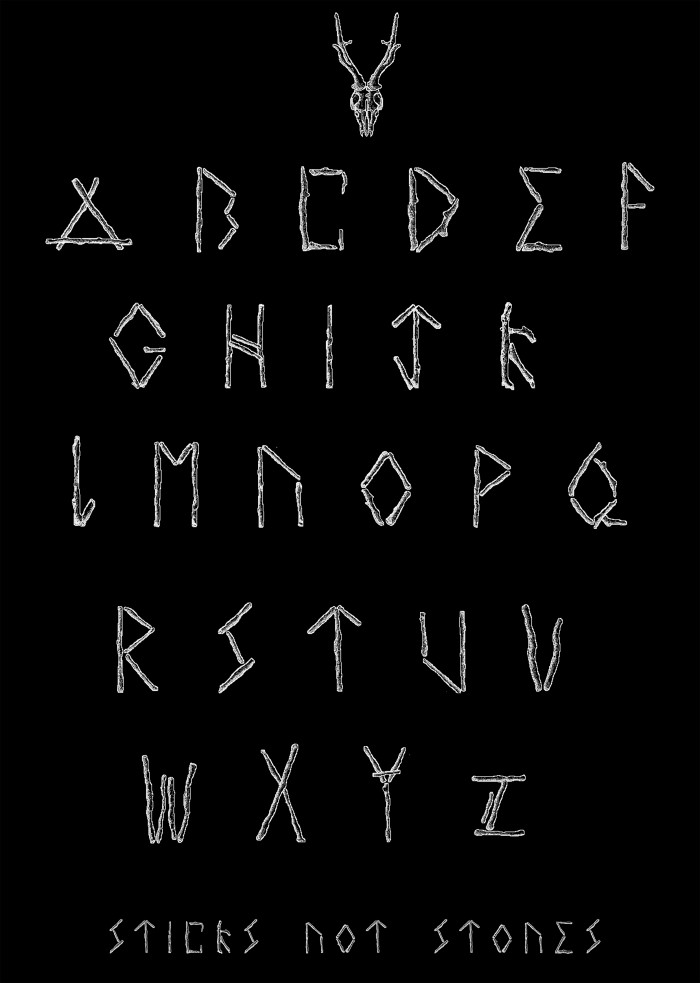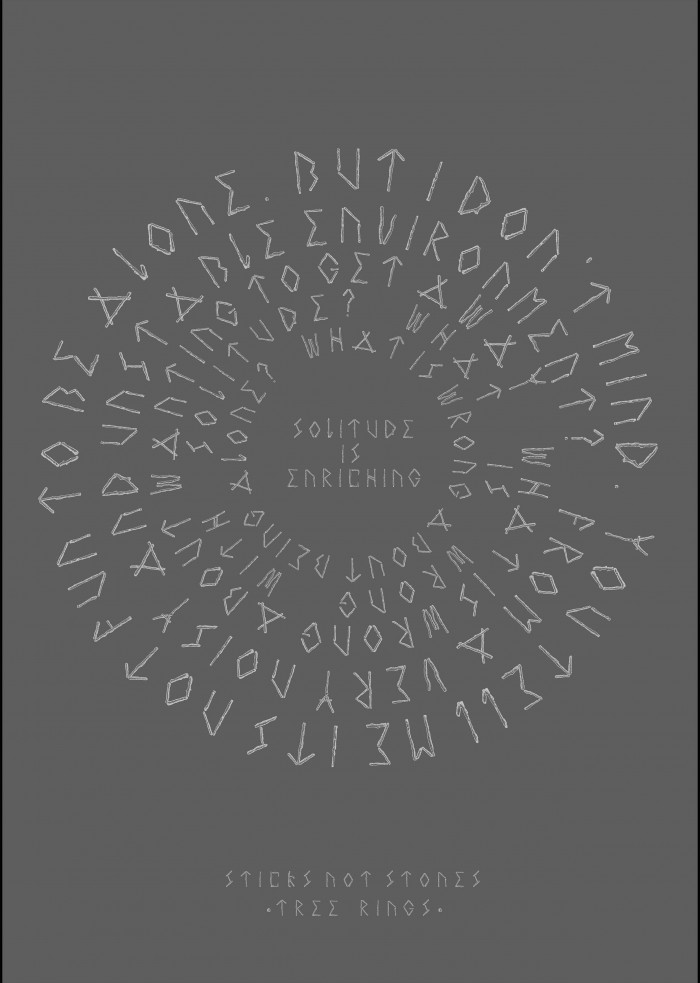
• The font was inspired by runic lettering and was taken from the theme unstable. sticks were used as the main shapes to create the typeface, to give this typeface a weak breakable feeling. I wanted to show a balancing act in the type to display the theme and give it a sense of unease.
This is yet another UWE gem. Just wonderful details.
@Mabry_Graphical - Wonderful shading / graident effects on this one.  :^)
This is just incredible, bravo.